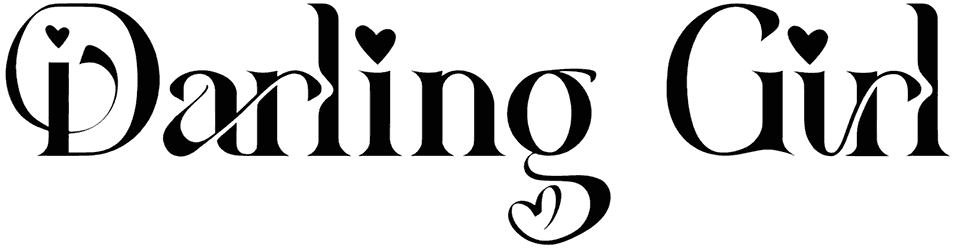
Darling Girl Font
Darling Girl font has the sweet bounce of a handwritten Valentine’s note, but it’s not too fragile to hold a full headline. The letters feel rounded, friendly, and a little playful, with soft curves that make the whole word look warm and approachable. You can tell it was made for designs that need charm before anything else.
Use this romantic font for love cards, bakery stickers, cute boutique logos, baby shower invites, candy packaging, quote prints, or cozy social posts. Add blush colors, tiny hearts, cream paper, or simple floral doodles, and it starts looking instantly lovable.